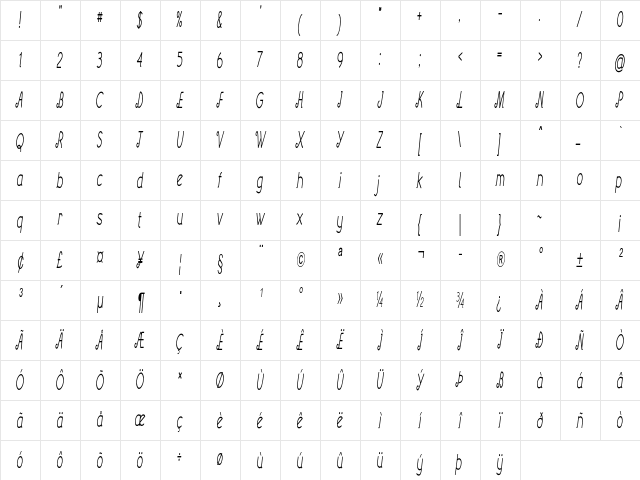
Dunkel Extra-condensed Italic
Style: Extra-condensed Italic
Dunkel Family
Dunkel Extra-condensed Italic
Complete Dunkel Extra-condensed Italic glyph index. Displaying only characters natively supported by Dunkel Extra-condensed Italic font.
Design Context for Dunkel
Dunkel is a composed and adaptable typeface that performs quietly and consistently across a wide range of design contexts. The slanted form adds forward momentum and visual energy. Its narrow stance lets it pack a punch even in space-constrained designs.